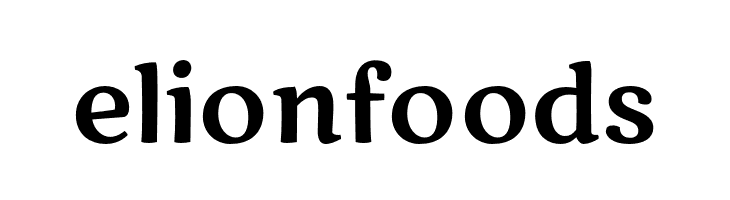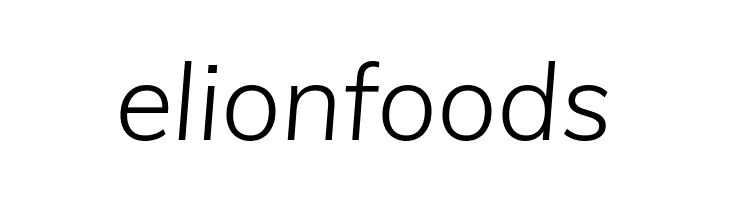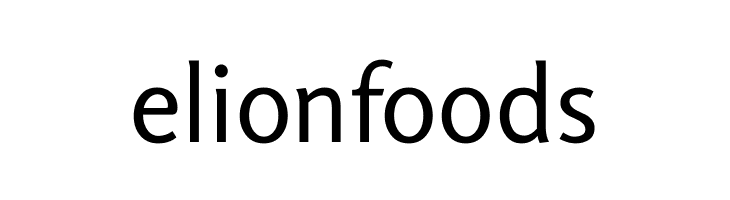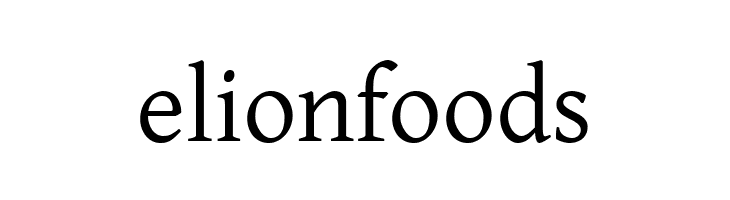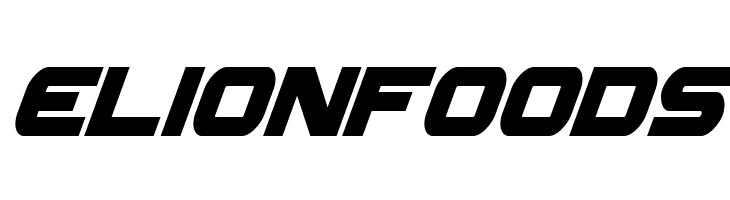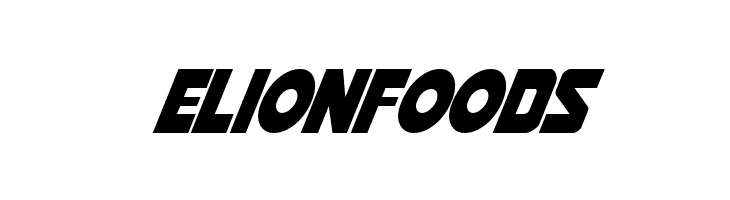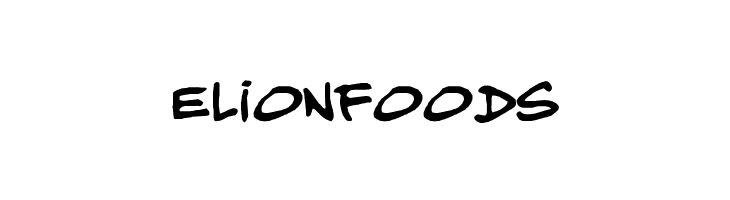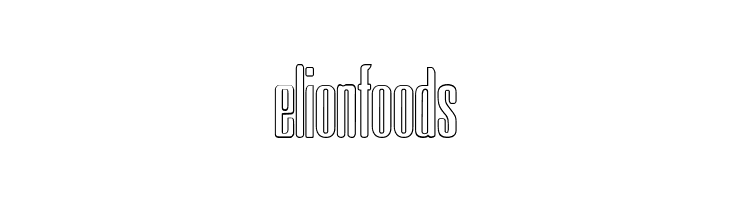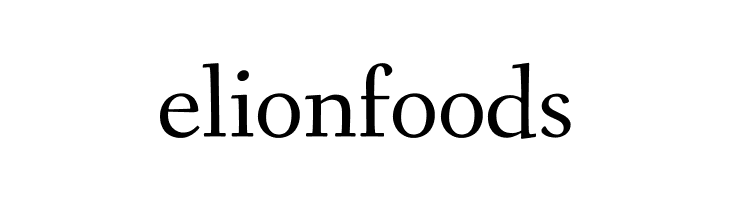
A modern serif font with rounded serifs and smooth curves, offering clarity and style.
A clean, modern sans-serif font with a geometric influence.
A modern, light, and italic sans-serif font with a sleek and elegant design.
A modern, readable typeface with elegant stroke contrast.
A classic serif font with elegant, readable characters and moderate contrast.
A bold, condensed italic font with a modern, angular design.
A bold, condensed, and italic font with sharp, angular edges and a modern, dynamic style.
A classic serif font with elegant strokes and moderate contrast.